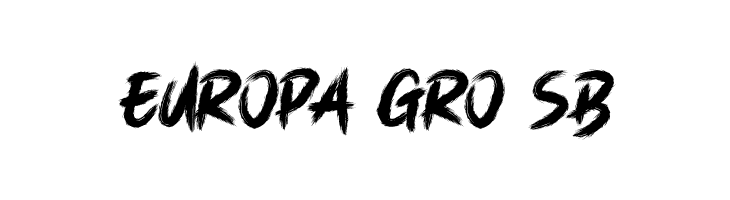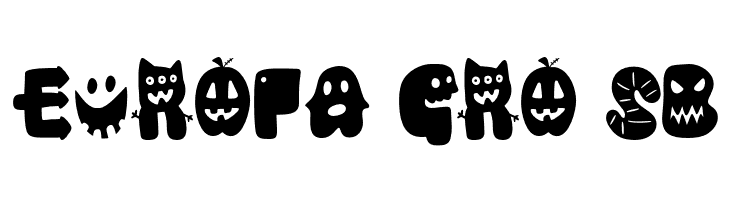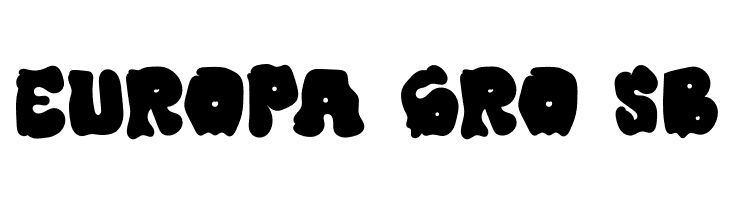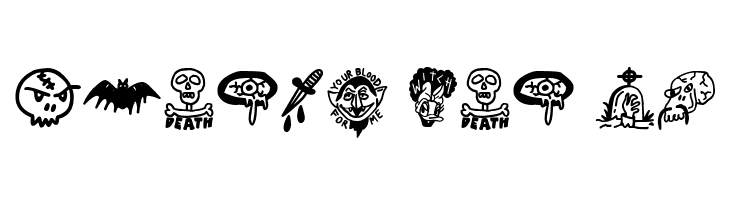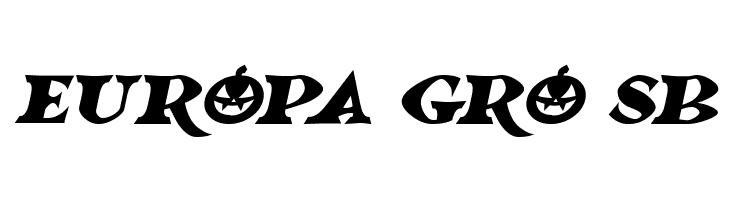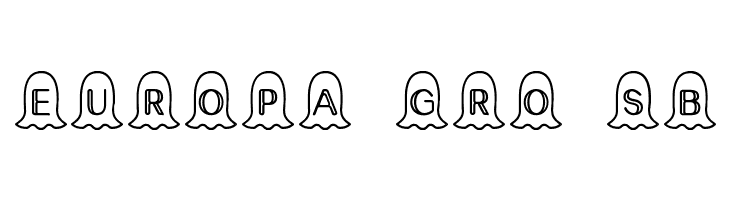
( Fonts by Attype Studio )
A bold, jagged font with a playful, spooky Halloween theme.
( Fonts by FreshtypeINK )
A playful, Halloween-themed font with pumpkin embellishments.
( Fonts by Brittney Murphy Design )
A playful, ghost-themed decorative font perfect for Halloween designs.
( Fonts by Si Panji )
A spooky, dripping font ideal for Halloween themes.
( Fonts by Si Panji )
A playful, spooky font with jagged edges and dynamic strokes, ideal for Halloween themes.
( Fonts by Ahwe Project )
A playful, spooky display font with Halloween-themed characters.
( Fonts by Dharmas Studio )
A playful, spooky font with dripping, bold characters ideal for Halloween themes.
( Fonts by 177Studio )
A whimsical and decorative font with playful curls and ornate details.
( Fonts by Font Bundles )
A bold, spooky font with a dripping effect, ideal for Halloween themes.
( Fonts by Harjuno Kristanto )
A spooky, dripping font perfect for Halloween-themed designs.
( Fonts by Ardyana Types )
A playful, hand-drawn font with a quirky, spooky vibe.
A playful, Halloween-themed font with characters carved into pumpkin shapes.
( Fonts by Yoga Letter )
A bold, dripping font ideal for horror and Halloween themes.
( Fonts by Andi Moz )
A spooky, jagged font perfect for Halloween themes.
( Fonts by Hawtpixel )
A bold, Halloween-themed decorative font with ghostly and pumpkin-like characters.
( Fonts by Hawtpixel )
A bold, playful font with ghostly elements and a Halloween theme.
( Fonts by Display Studio )
A spooky, Halloween-themed decorative font with ghostly and webbed elements.
( Fonts by Suhee Hwang )
A spooky, distressed font ideal for Halloween and horror themes.
( Fonts by Letterafa Studio )
A spooky, web-themed decorative font perfect for Halloween designs.
( Fonts by Letterafa Studio )
A playful, ghost-themed decorative font perfect for Halloween projects.
( Fonts by Studio Hello Good )
A playful, rounded font with bold, smooth curves and a friendly appearance.
( Fonts by Lettersweet Studio )
Playful handwritten script font.
( Fonts by Dm Letter Studio )
Playful, bold handwritten font with a casual style.
( Fonts by Dm Letter Studio )
Playful and bold handwritten font.
( Fonts by Letterafa Studio )
Playful handwritten font with bold, rounded characters.
( Fonts by keithzo )
Bold, rounded display font with Halloween-themed icons.
( Fonts by Lettersiro Studio )
A bold, dripping horror display font with jagged, irregular forms.
( Fonts by PutraCetol Studio )
A bold, bandaged decorative font with a spooky, Halloween vibe.
( Fonts by Scratchones )
A dripping, spooky script font with a playful Halloween vibe.
A tall, playful sans-serif with rounded, hand-drawn qualities.
A whimsical, rounded sans-serif font with playful curves and tall, narrow proportions.
( Fonts by Lalan Farlan )
Casual, energetic handwritten script with variable strokes.
( Fonts by Danar Nugroho )
Playful handwritten font with tall uppercase and connected lowercase script.